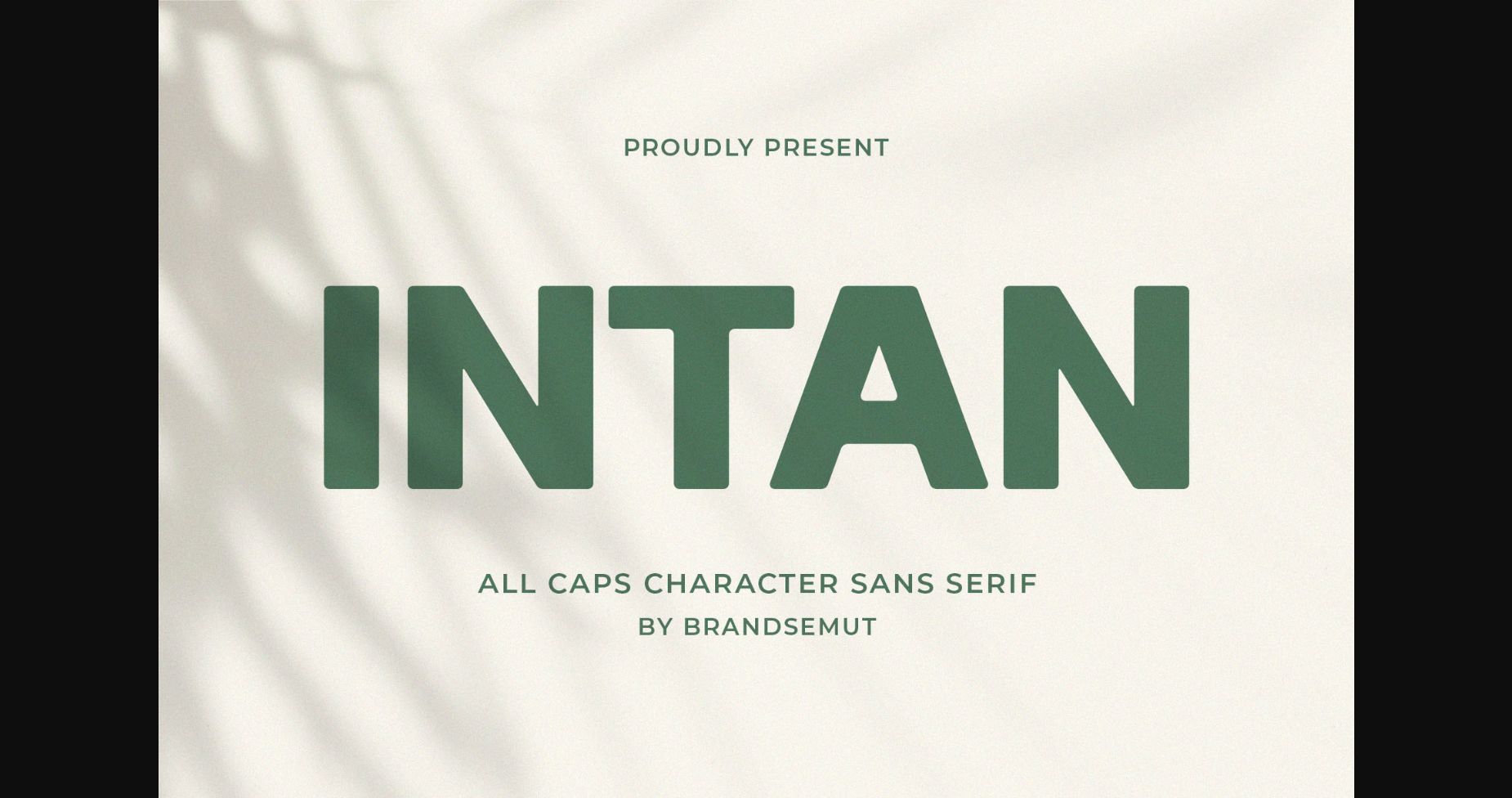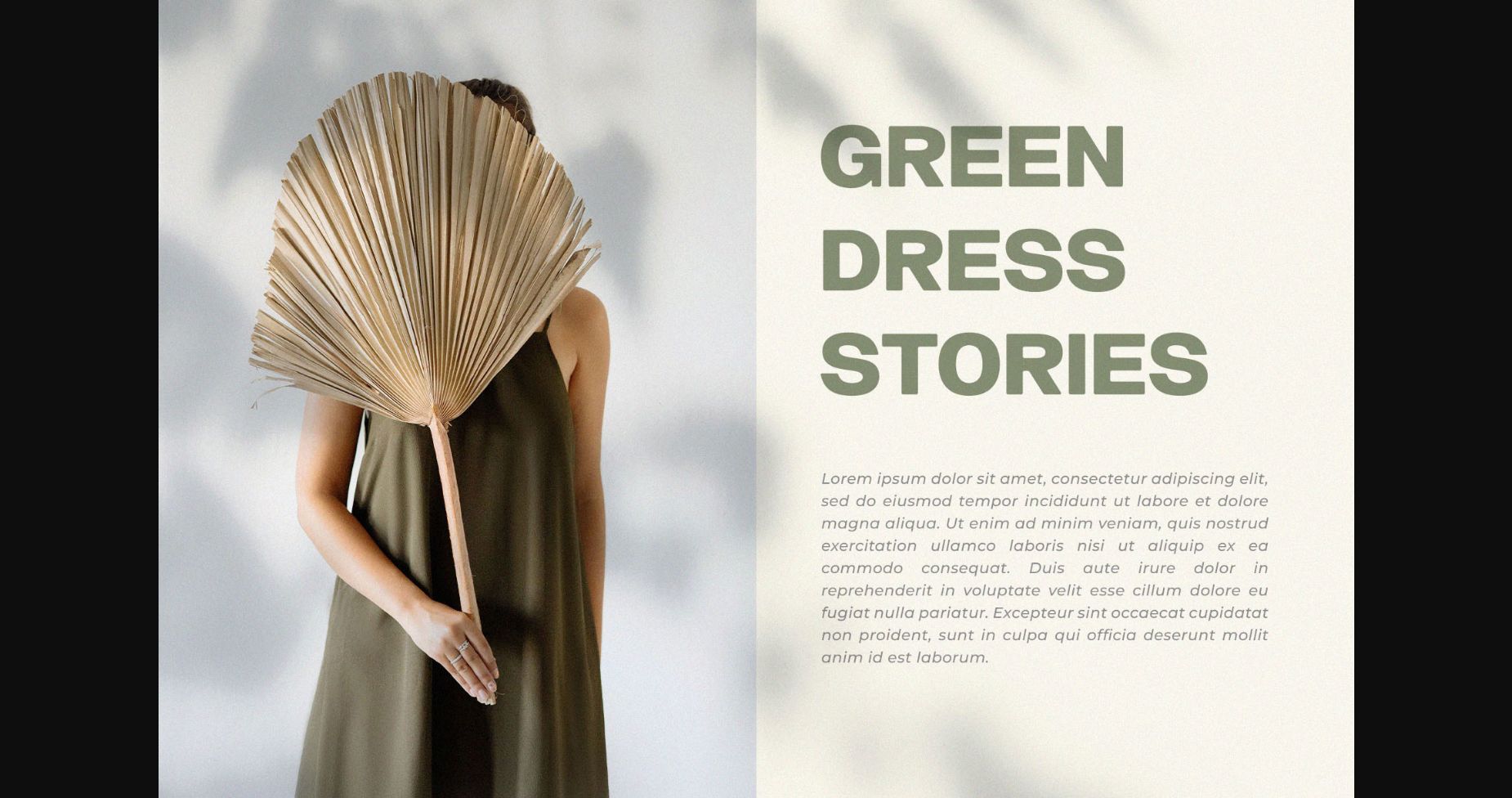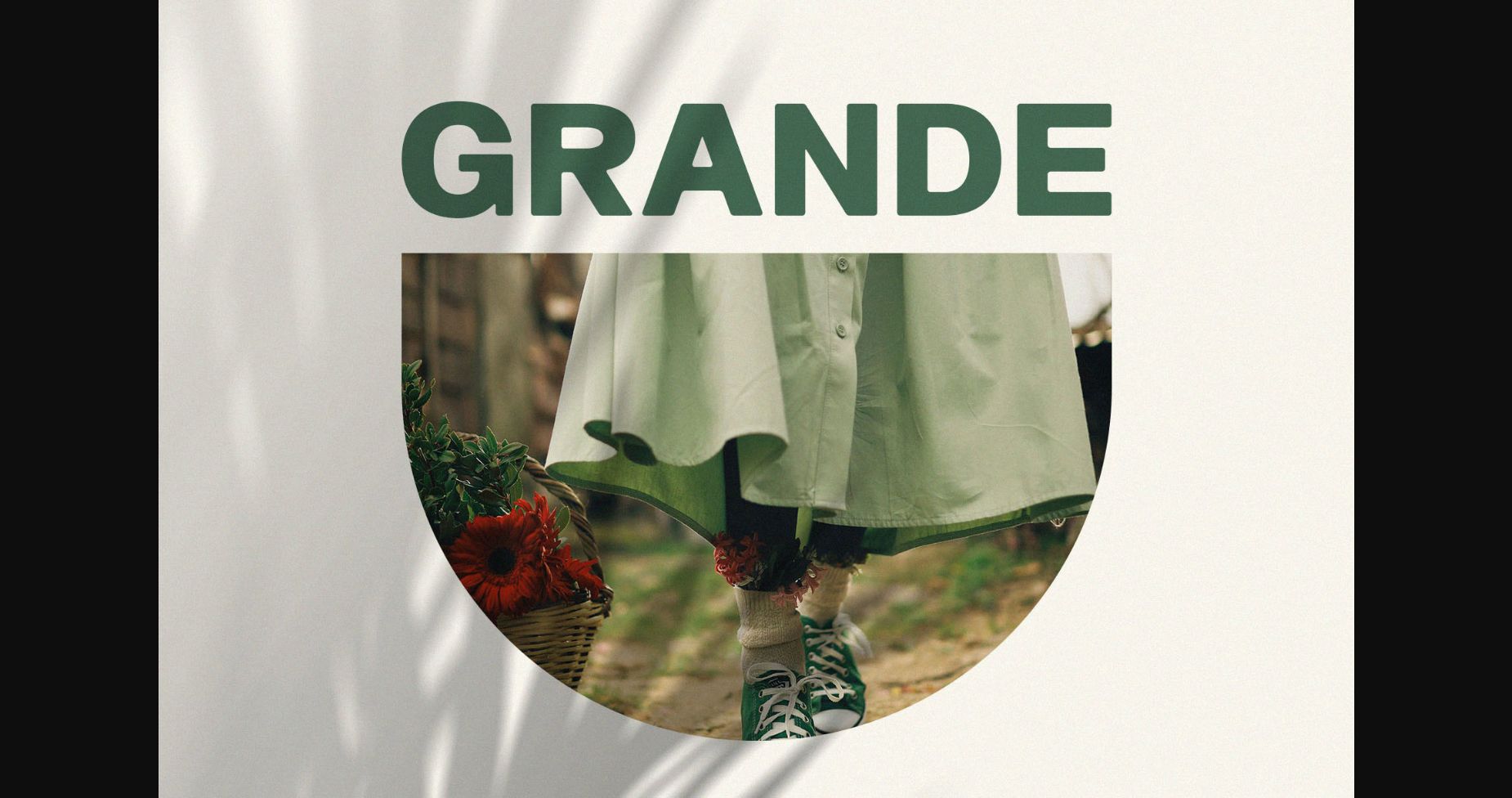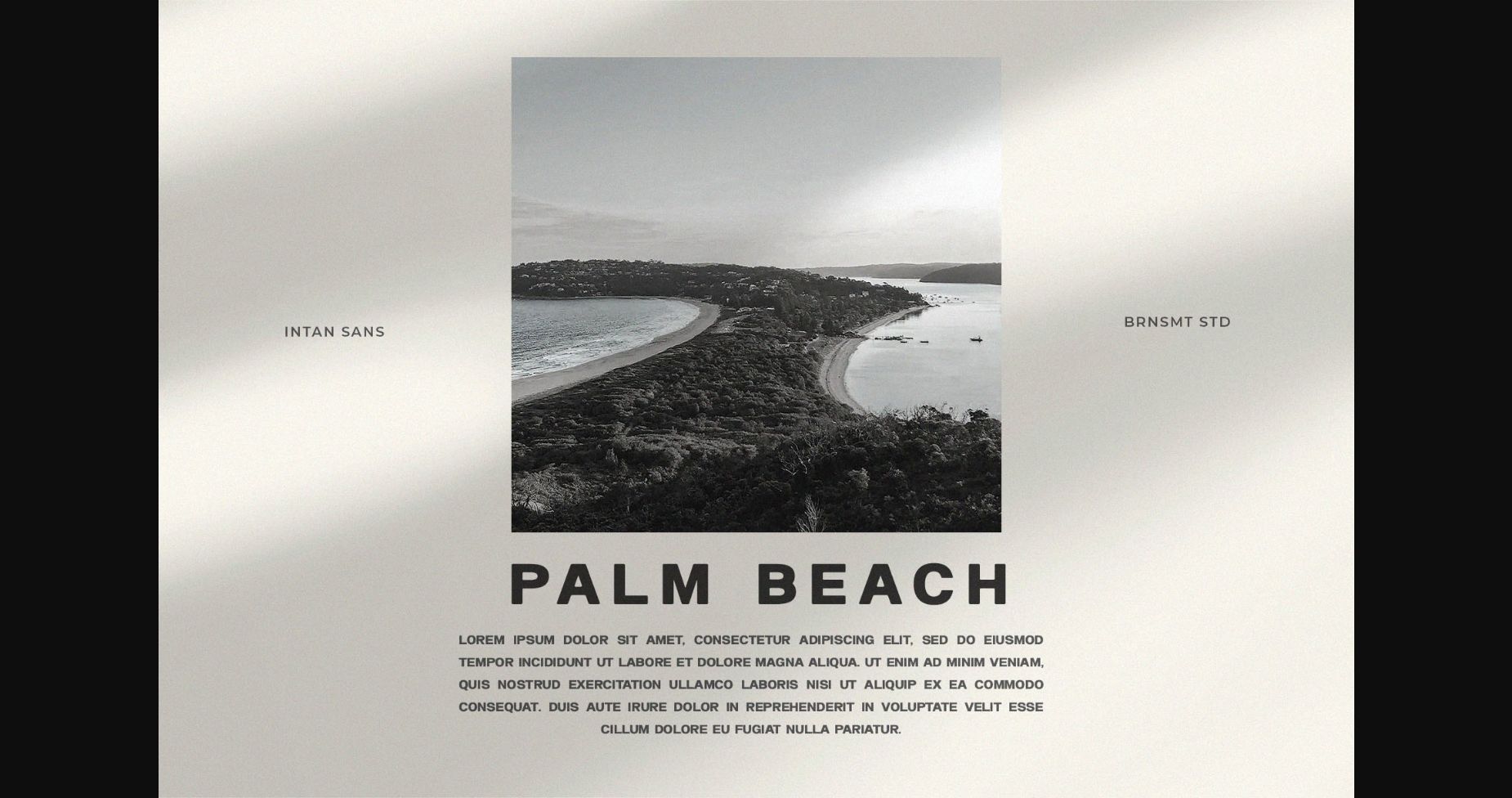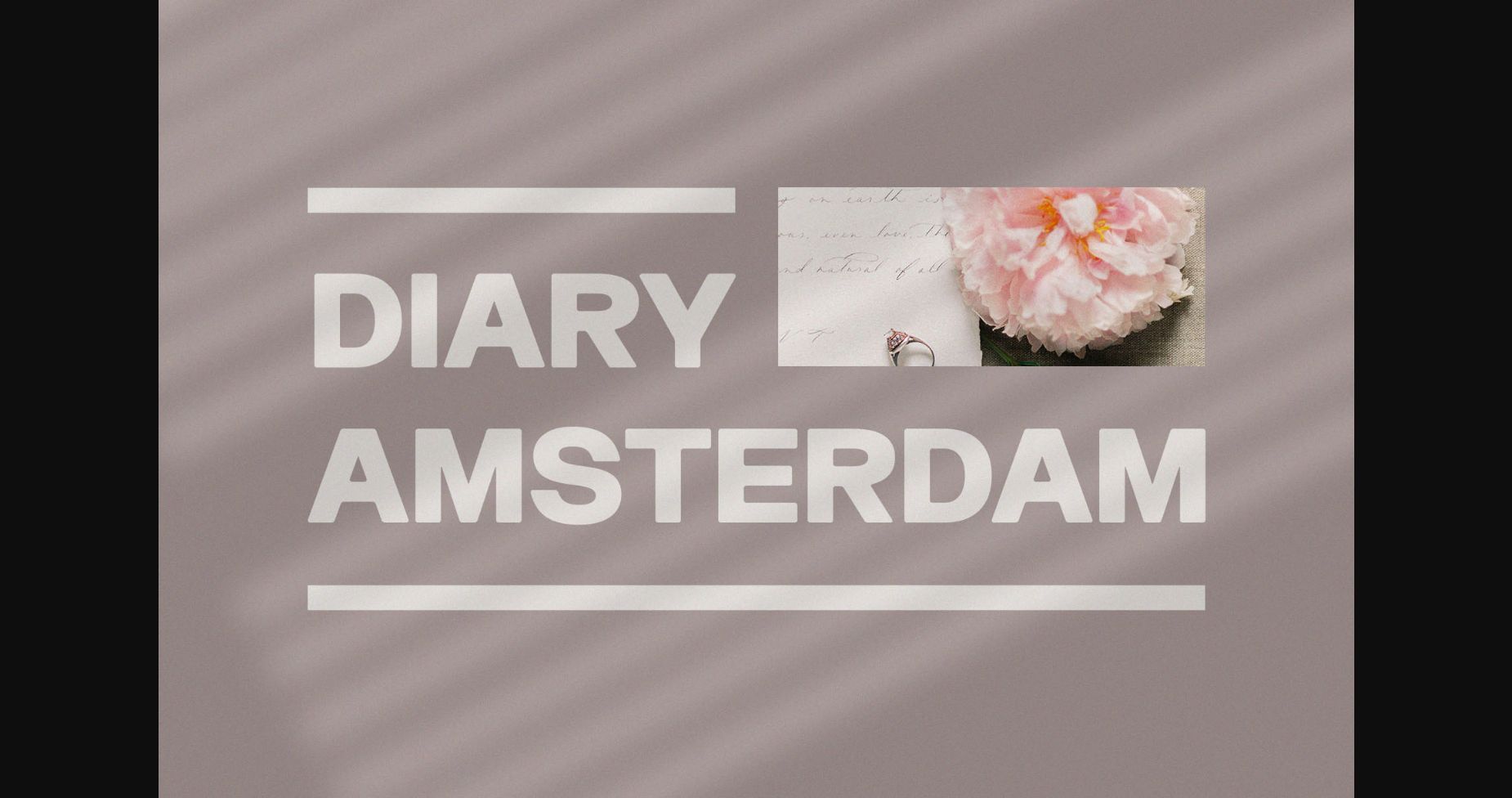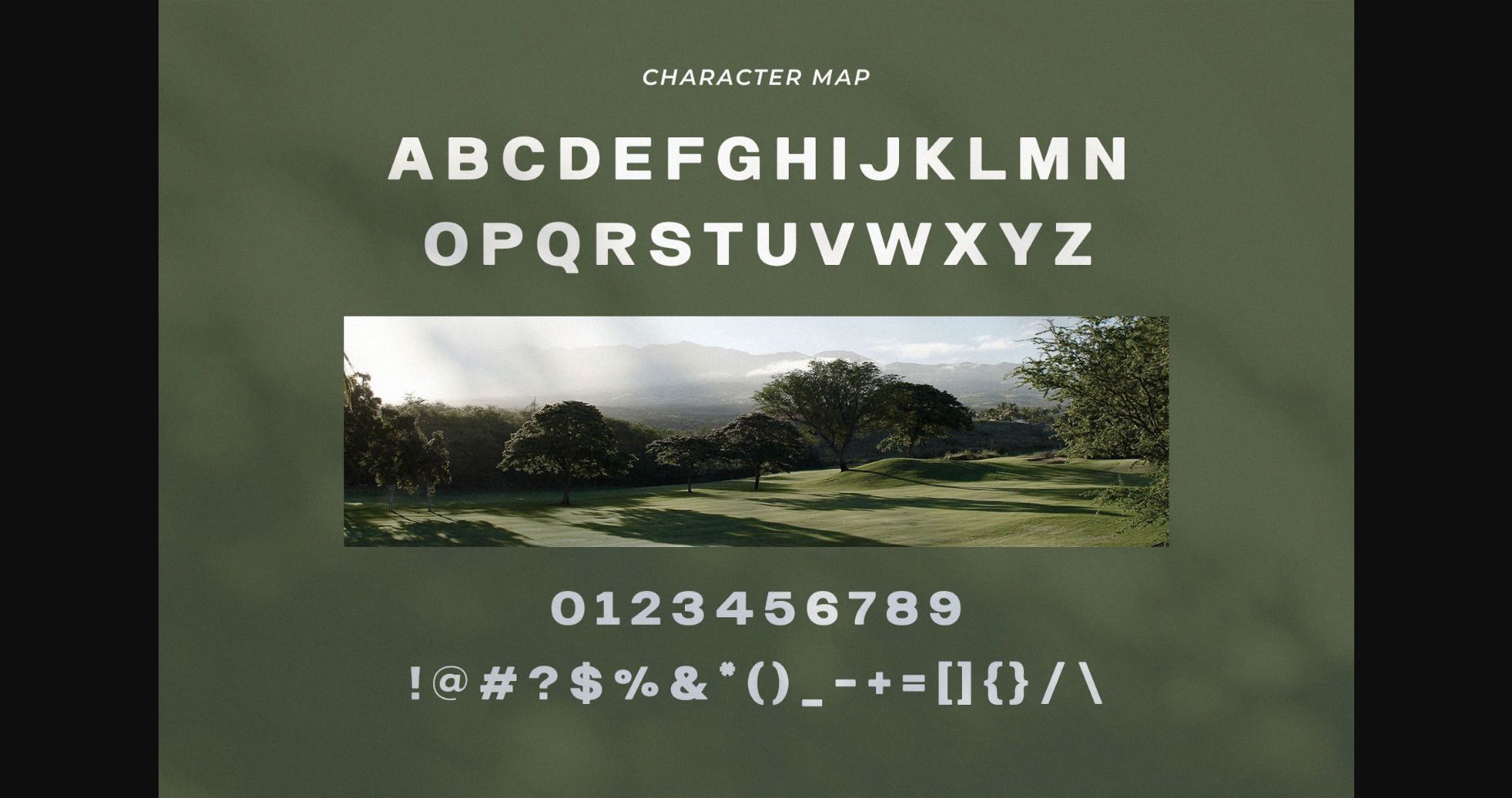
HomeSans Serif FontsIntan Font Sans Serif Fonts Intan Font FacebookXPinterestWhatsApp 1 of 8 ... Intan Font Poster 2... Intan Font Poster 3... Intan Font Poster 4... Intan Font Poster 5... Intan Font Poster 6... Intan Font Poster 7... Intan Font Poster 8... About Intan Font Intan is a modern and classy sans serif font. Add this beautiful sans serif font to each of your creative ideas and notice how it makes them stand out! DOWNLOAD NOW People also explored Hacktown Font Spring Blossom Font Simple Floral Line Monogram Font Das Pattern Font Beach Winds Muffle Font Beach Please Vintage Bellmounts Font Tutoring Font 319 0 TagsIntanIntan Font Previous articleEl Moderna FontNext articleThinking Font LEAVE A REPLY Cancel reply Comment: Please enter your comment! Name:* Please enter your name here Email:* You have entered an incorrect email address! Please enter your email address here Website: Save my name, email, and website in this browser for the next time I comment. Personal Use Free Krase Personal Use Free Read more about this font Austins Personal Use Free Read more about this font Eniem Personal Use Free Read more about this font Ayam Bakar Personal Use Free Read more about this font BLOG Fonts That Capture the Spirit of New York City New York City is more than just a place—it’s an experience, a rhythm, a visual language... To increase your work productivity, choose the most readable fonts. Top 7 Google Fonts Alternatives for Faster and Privacy-Friendly Web Design (2025) The 10 Best Handwriting Fonts to Add Personality to Your Designs